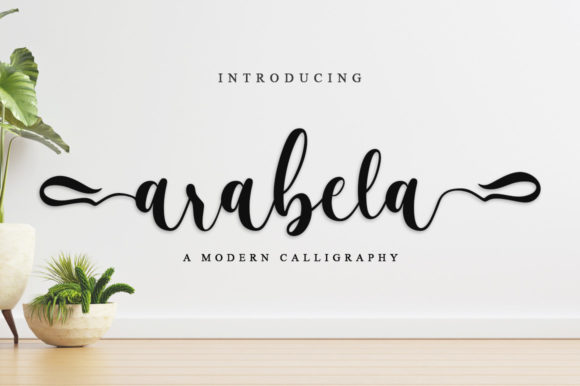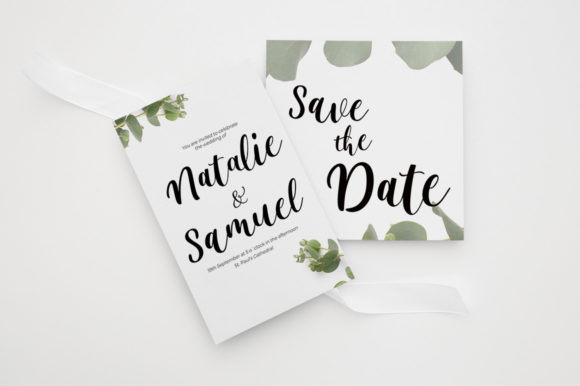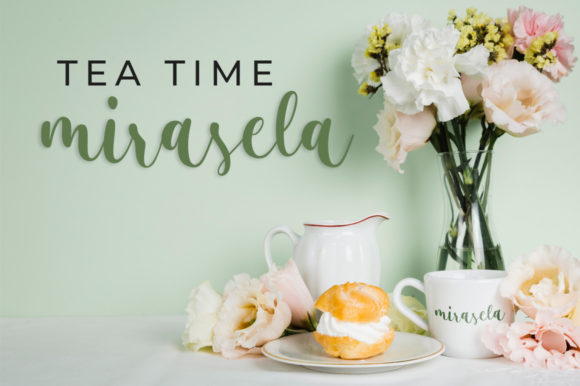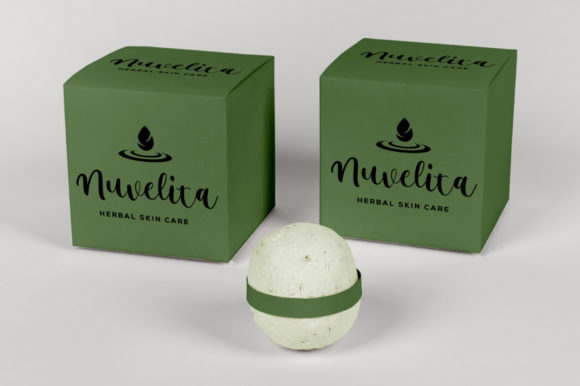
Arabela Font: Elegant Script for Wedding Invitations & Logo Design
About the Arabela Font
The Arabela Font offers a perfect balance of form and function for your design needs. Arabela is a stylish and incredibly elegant script font. It will add a luxury spark to any design project that you wish to create! This font is PUA encoded which means you can access all of the amazing glyphs and ligatures with ease!
Arabela’s elegant, flowing forms are ideally suited for projects requiring a touch of luxury and sophistication. It excels in headlines, short text blocks on invitations or certificates, and logo design where its refined curves can create a memorable brand identity. Avoid using Arabela for large bodies of text or UI elements; its intricate details can become difficult to read at smaller sizes.
Pairing Arabela with a clean sans-serif like Montserrat for body copy creates a strong visual hierarchy, balancing the script’s flourish with a modern, legible counterpart. For a more traditional feel, a classic serif such as Garamond offers a complementary level of formality. Alternatively, a geometric sans-serif font such as Futura adds a contemporary contrast, enhancing Arabela’s inherent elegance.
Arabela projects a personality of refined sophistication and timeless charm. It’s best suited for brands associated with luxury goods, high-end services, fashion, or events that emphasize elegance and exclusivity.
Arabela Font Usage Examples
Arabela Font Example